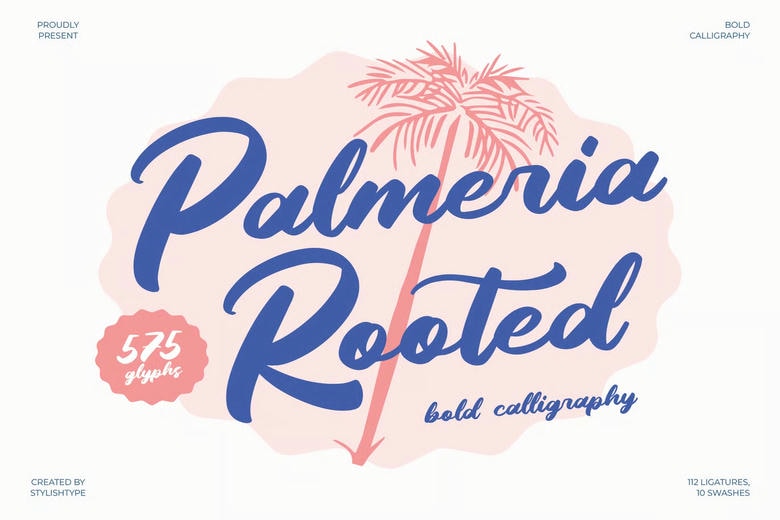
Palmeria Rooted Font
Palmeria Rooted is a daring calligraphy script typeface that has tropical appeal, flowing brush strokes and a friendly handwritten feel. Intended to bring out vacation-related notions, sunny beaches, and playful summers, this typeface would be suitable in the context of branding of a beach, cafe menu design, packaging, travel posters, social media quotes, and expressive lifestyle logos. Its flowing motion, and the certain phrases give it a welcoming, positive and refreshing look.
Palmeria Rooted offers designers a wide range of choice with 112 ligatures, 10 swashes and an enormous 575 glyphs, allowing them to create a range of designs such as custom lettering, wordmark, dynamic title compositions and signature-style design. It has a bold brush texture, tropical character, and versatilities of style features that make it a perfect selection when a designer wants to have fun, creative and feel-good projects.
Palmeria Rooted Calligraphy Script Font